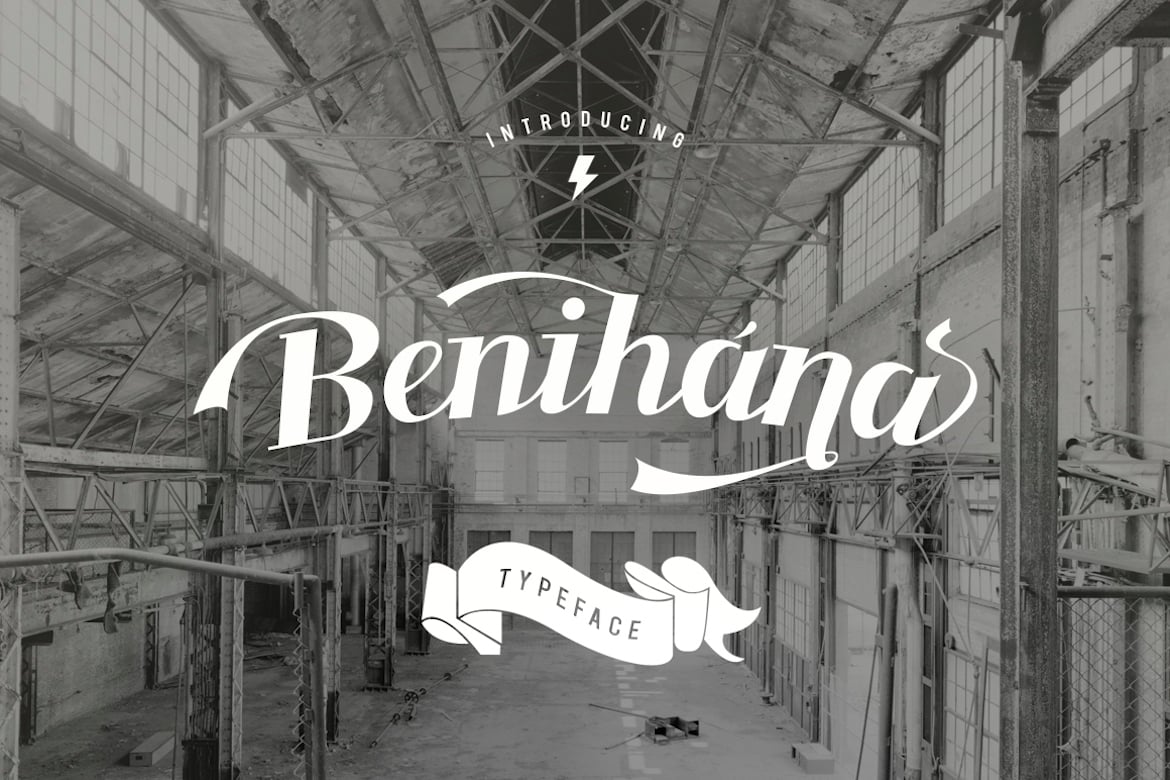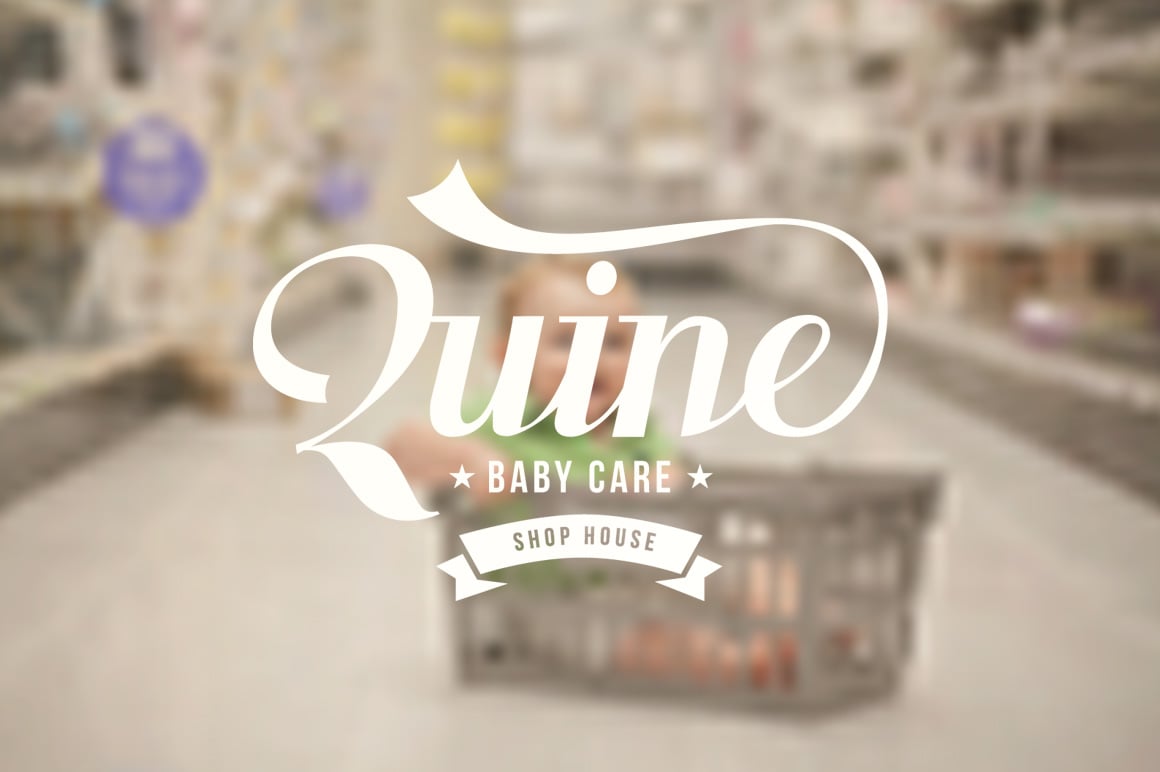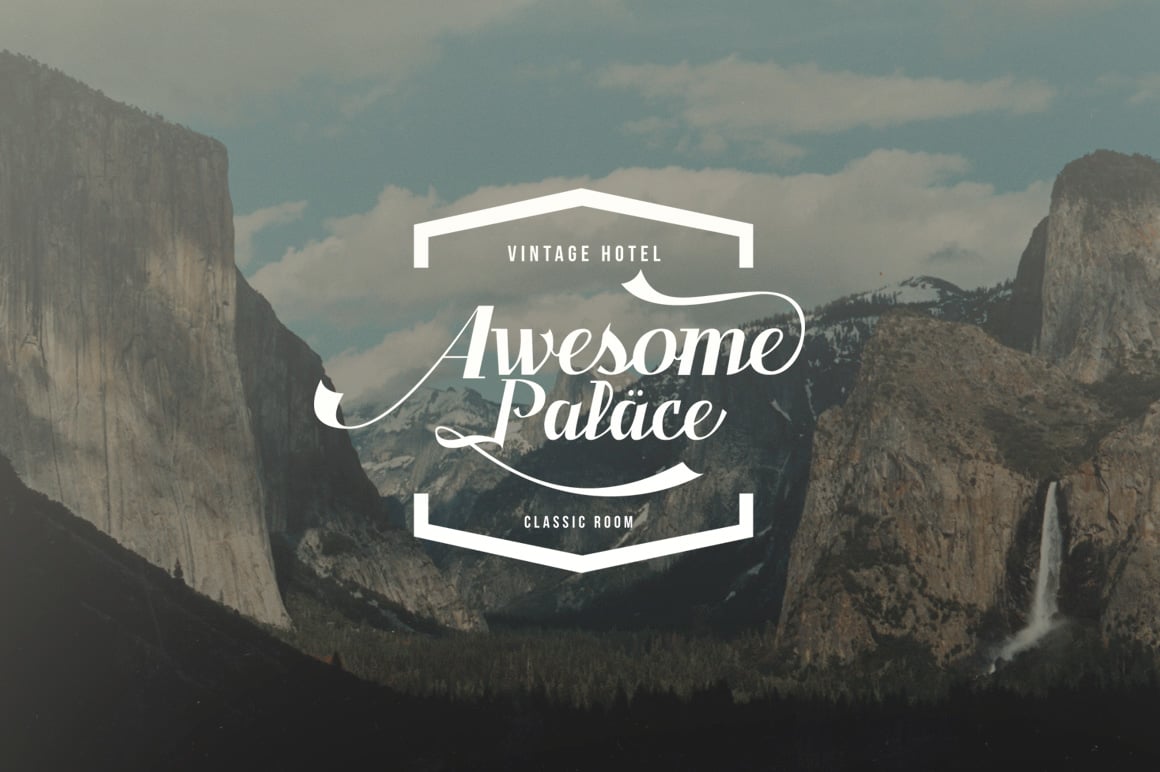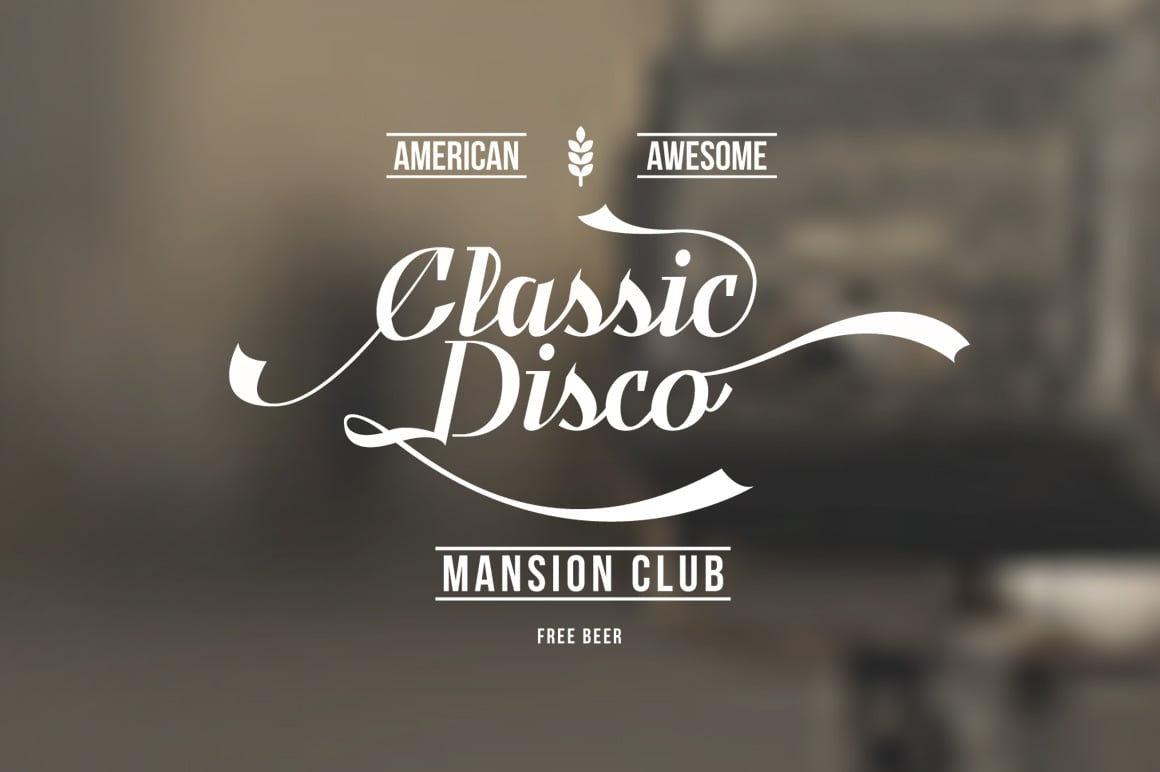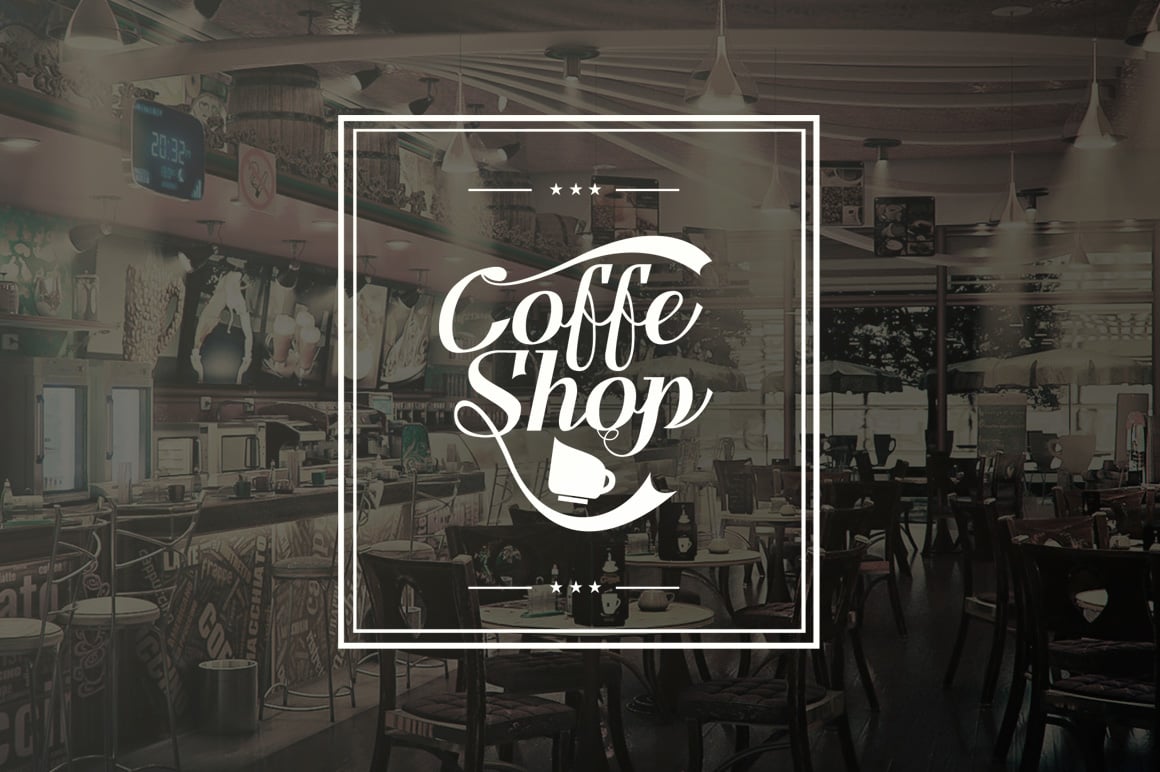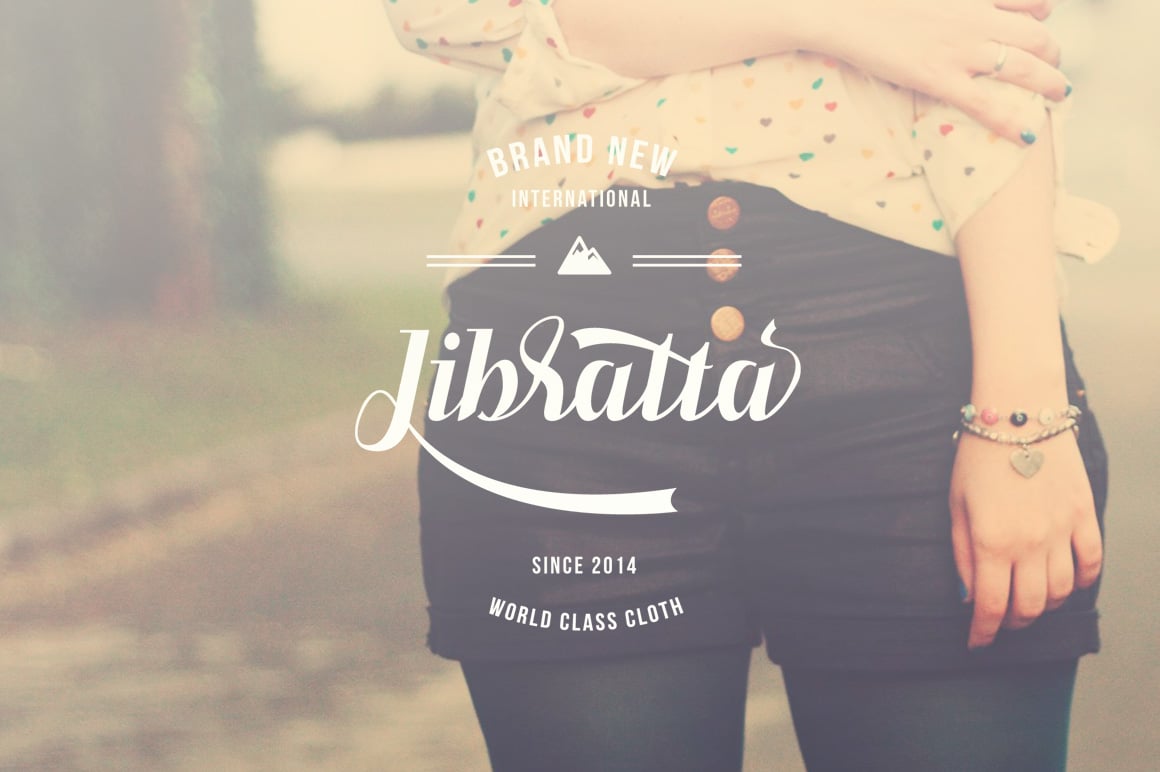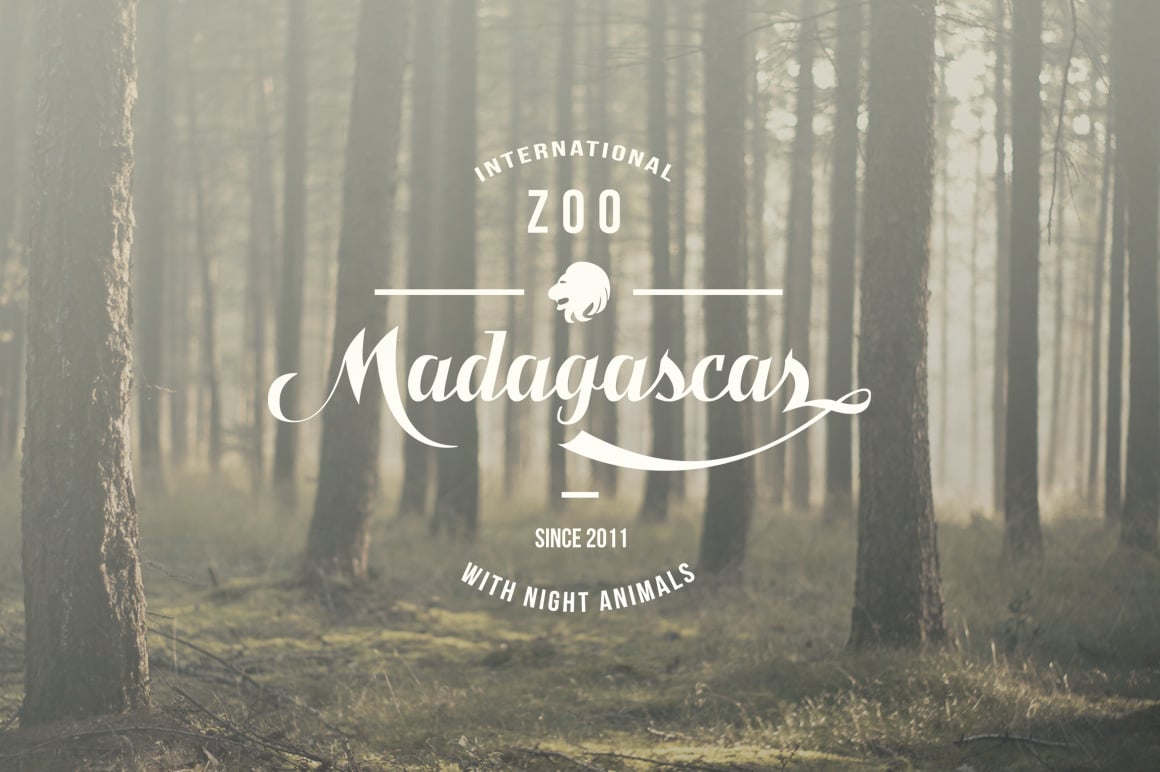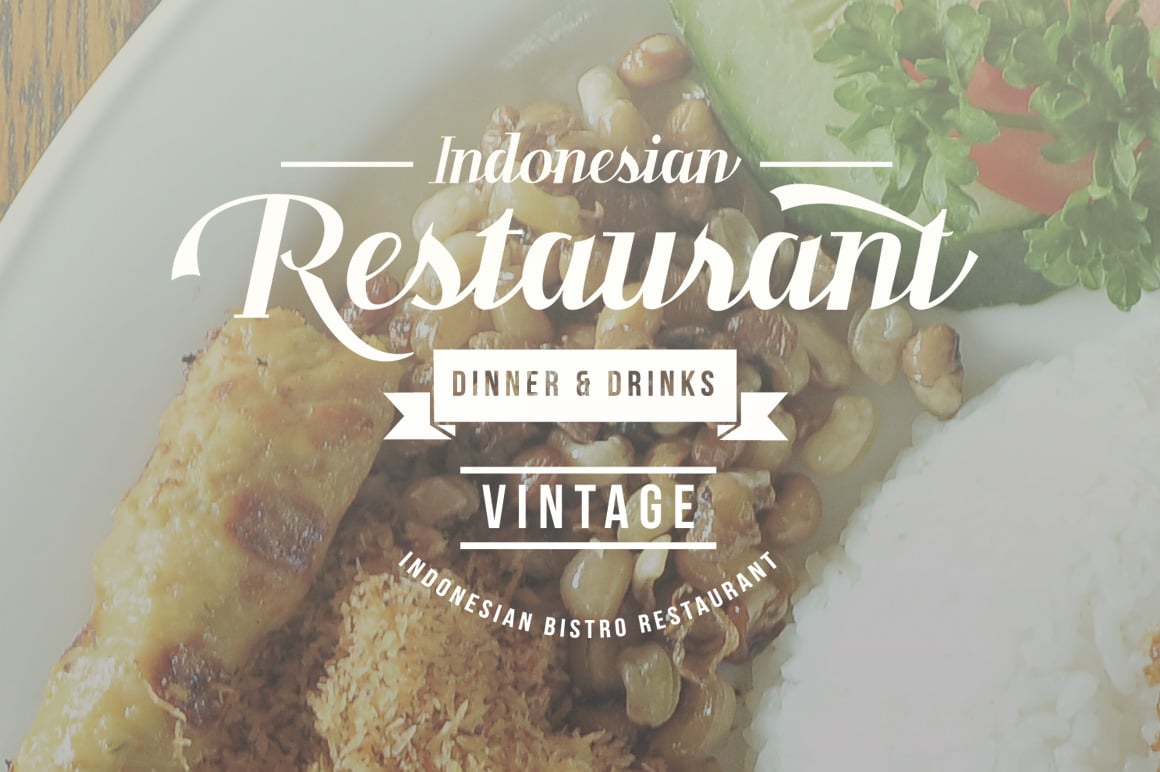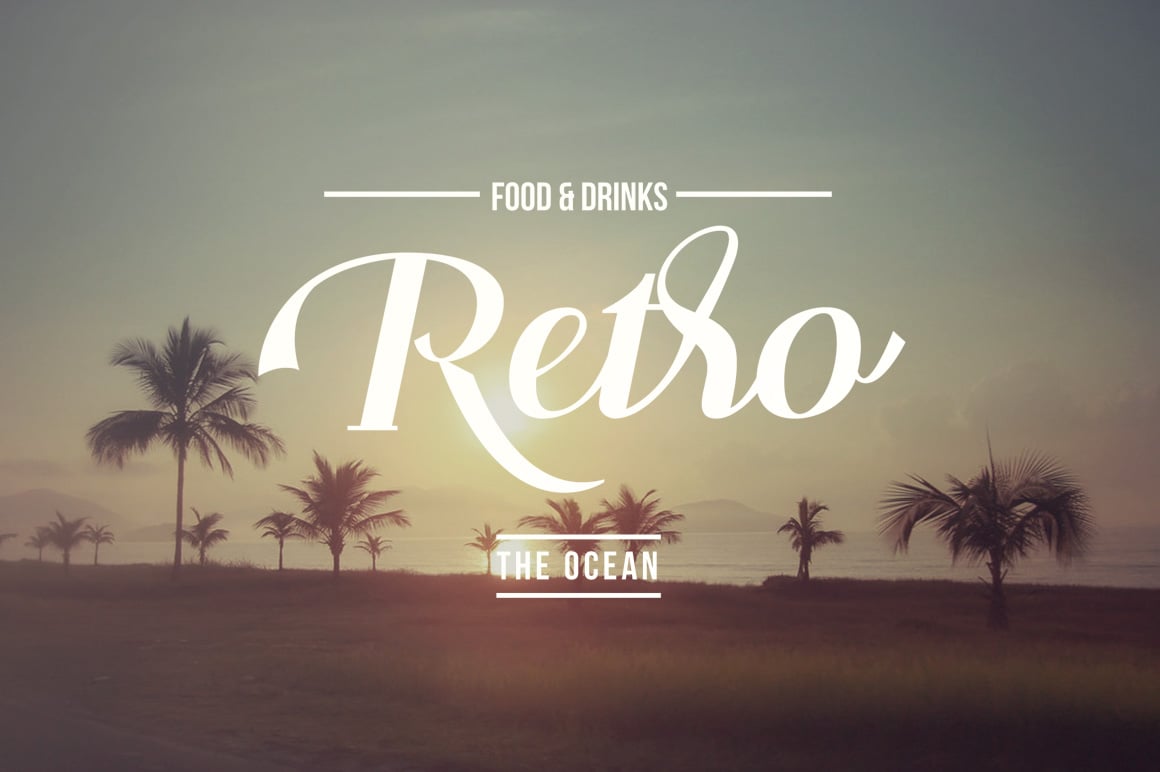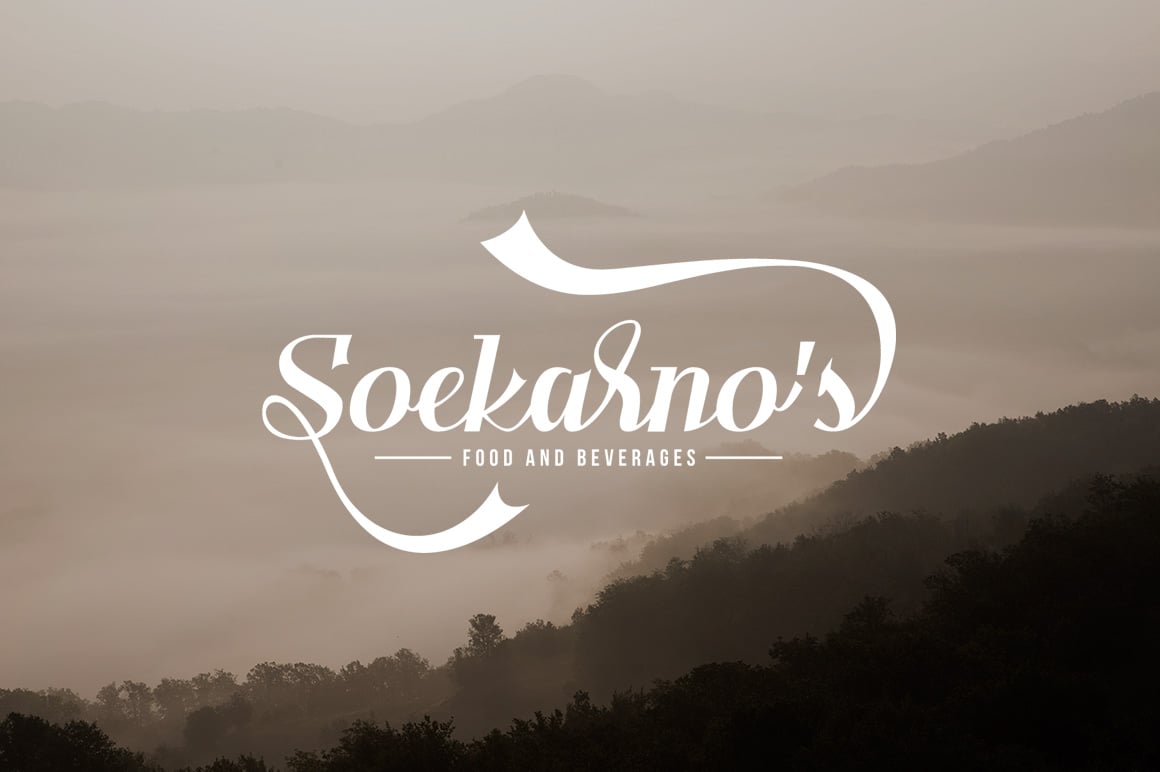
Benihana Vintage Font
Benihana is elegant calligraphy fonts with ribbon style, combines from strong ribbon become a contemporary typeface like a waff and smiley, with a modern, classy and elegant touch.
Benihana features 300+ glyphs and 150+ alternate characters. With OpenType features with Stylistic Alternates, Contextual Alternates & Titling Alternates in some characters that allows you to mix and match pairs of letters to fit your design.
This font good for vintage design, t-shirt, logo, labels, posters and etc.